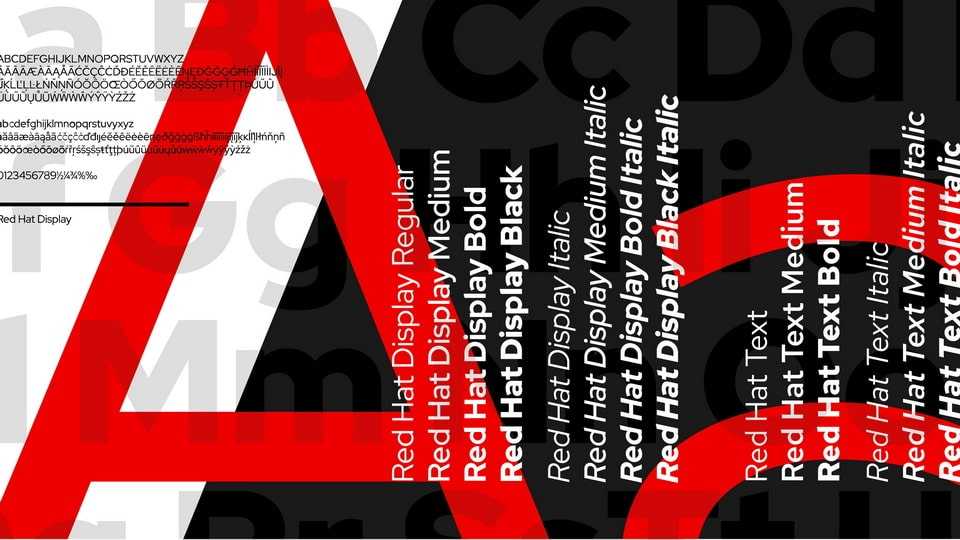
Download Red Hat font, a fresh take on the geometric sans genre, taking inspiration from a range of American sans serifs including Tempo and Highway Gothic.